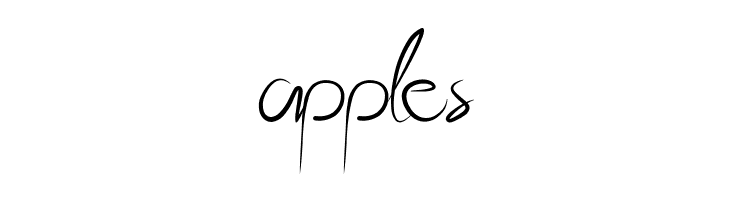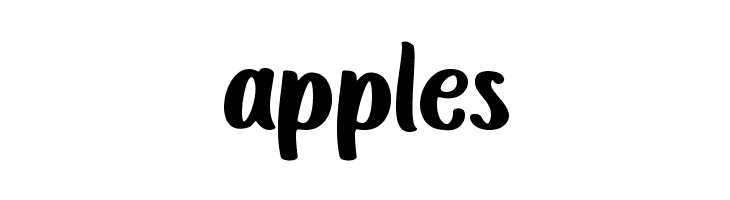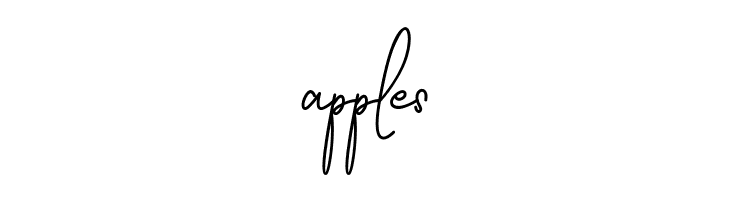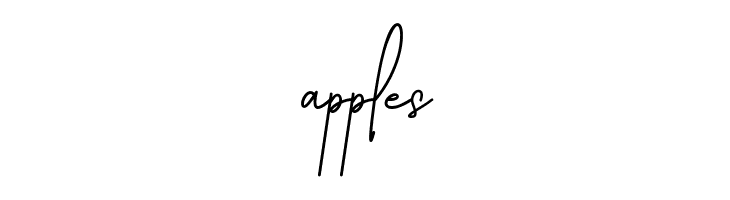
Katty Pretty 2 Font
Haksen Letters - Sarwo Edhi Prayitno
A modern, handwritten script font with elegant, flowing strokes.
Katty Pretty 1 Font
Haksen Letters - Sarwo Edhi Prayitno
A cursive, handwritten font with bold, expressive uppercase letters and fluid lowercase characters.
Katty Signature Font
A graceful, cursive script font with a handwritten signature style.
Katty Purry Font
A playful, bold handwritten font with a smooth, rounded style.
Kattyland Font
A dynamic and flowing script font with elegant, fluid strokes.
KattyLove Font
A playful handwritten font with a casual and friendly style.
Kattys Regular Font
Font by Achmad Yani
A handwritten, casual script font with a playful and informal style.